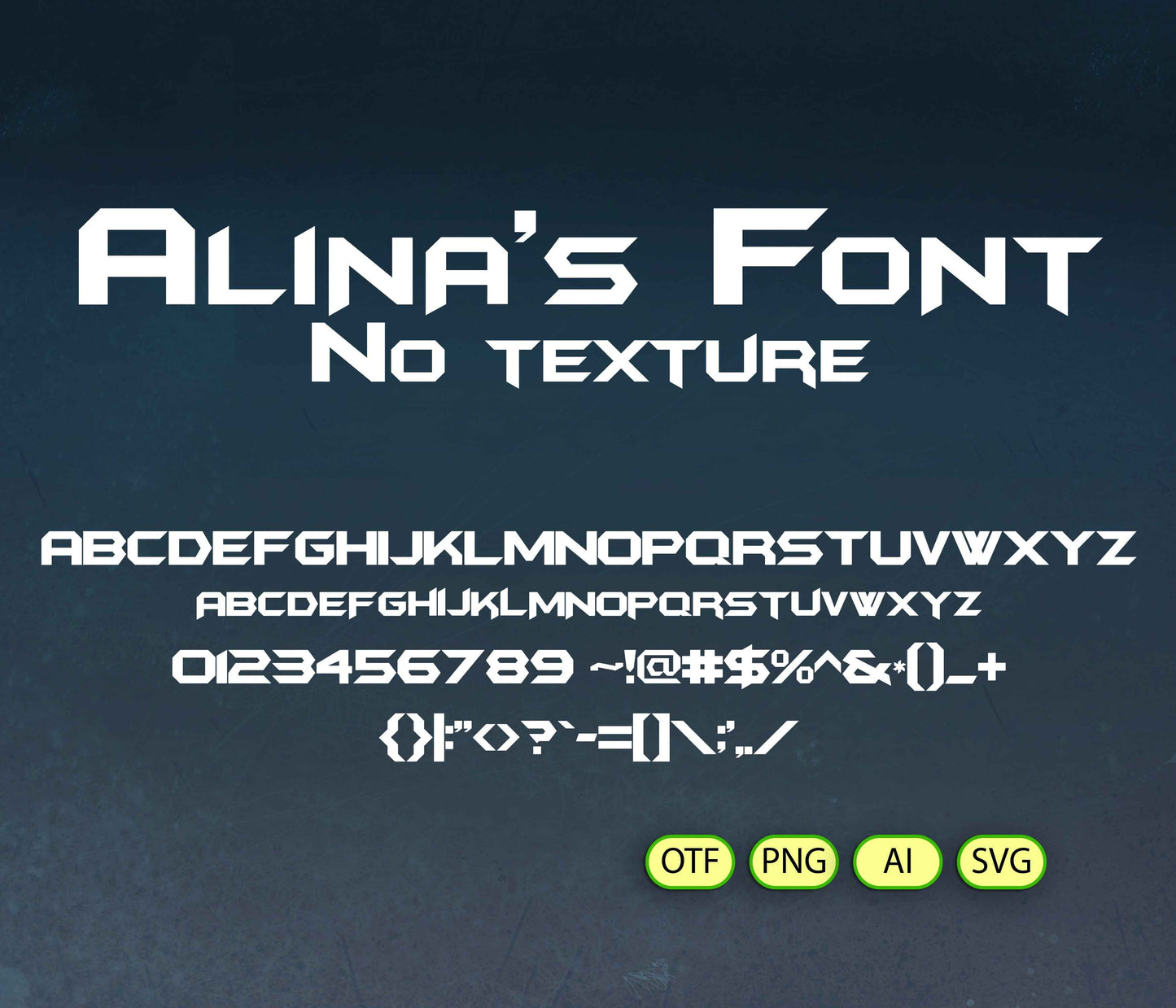
Nocturnal Vigilante Font
Immerse yourself in the shadowy world of a brooding urban hero with our specially crafted font. This typeface captures the essence of the iconic masked detective, known for his unwavering pursuit of justice. Perfect for comic enthusiasts, graphic designers, and fans of noir aesthetics, this font brings the bold, dramatic spirit of the dark knight to your creative projects.
What font is the Nocturnal Vigilante font?
Picture a typeface that embodies the strength and mystery of the bat-inspired protector - sharp, imposing, and emanating nocturnal energy. Our font features strong, angular letterforms that echo the jagged skyline of a crime-ridden metropolis, complete with subtle hints of bat-like elements. It includes a comprehensive character set with alphabets, numbers, and special symbols, offering a versatile solution for various design needs.
What You Can Do With Nocturnal Vigilante Textured Font
This versatile font is ideal for a range of creative applications:
- Comic Book Creations: Design striking titles and dialogue for your own vigilante stories
- Movie Night Invitations: Craft atmospheric invites for superhero film screenings
- Merchandise Design: Create eye-catching t-shirts, posters, and collectibles for fans
- Digital Content: Enhance websites, blogs, and social media with bold headers and graphics
- Event Decorations: Develop banners, signs, and backdrops for hero-themed parties
- Gaming Assets: Use in character dialogues or menu designs for superhero video games
- Cosplay Accessories: Design props and costume elements with authentic-looking text
- Themed Restaurant Menus: Add a touch of vigilante flair to specialty dishes and drinks
- Extensive Character Set: Offers a wide range of characters for complete design flexibility